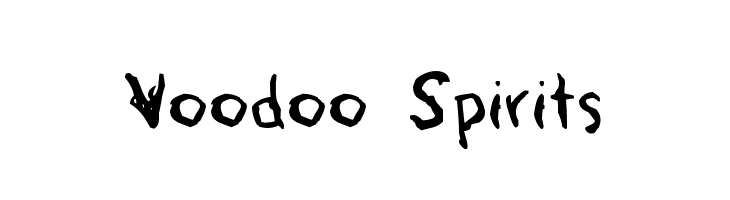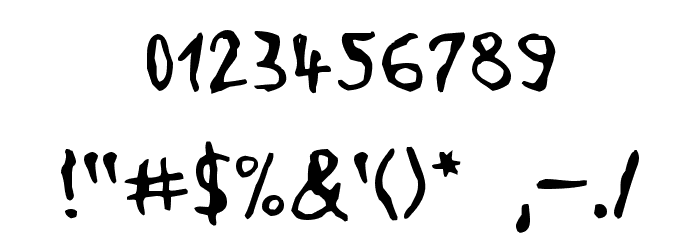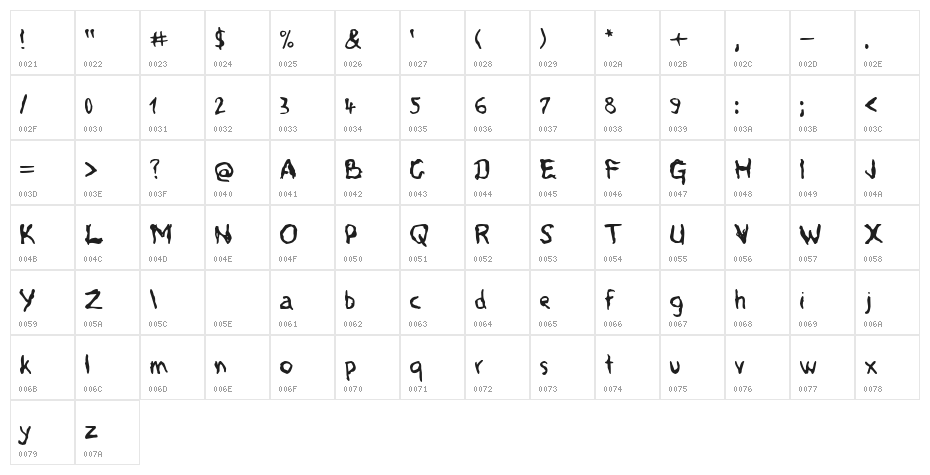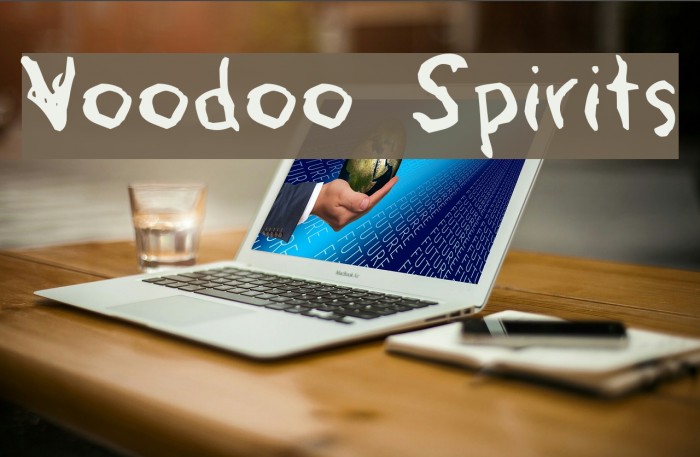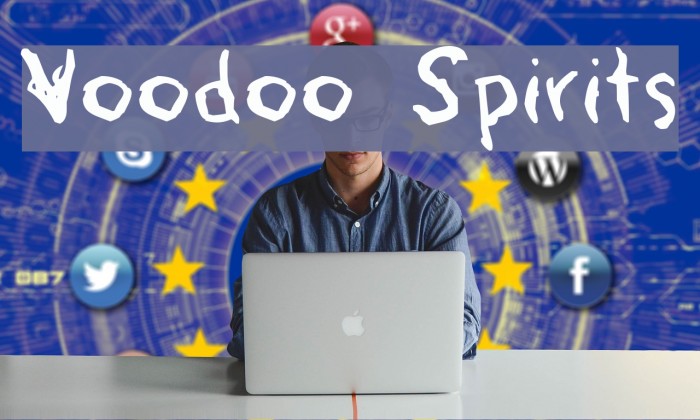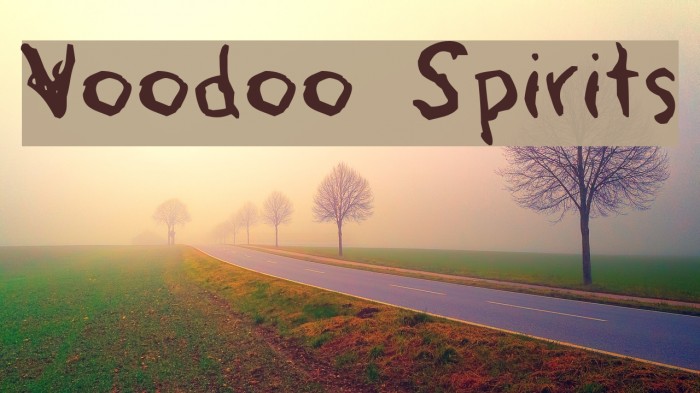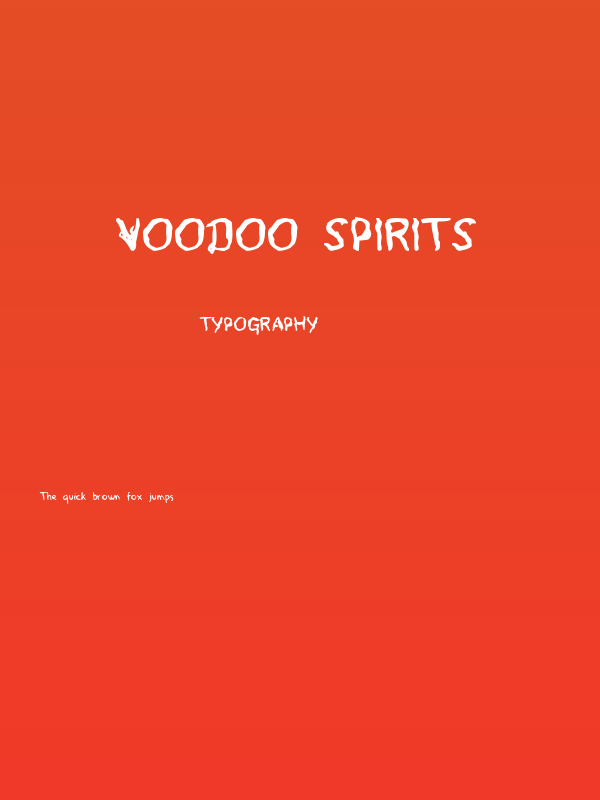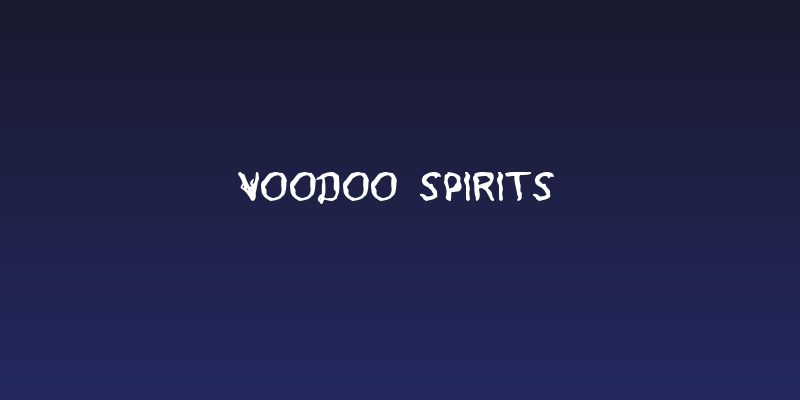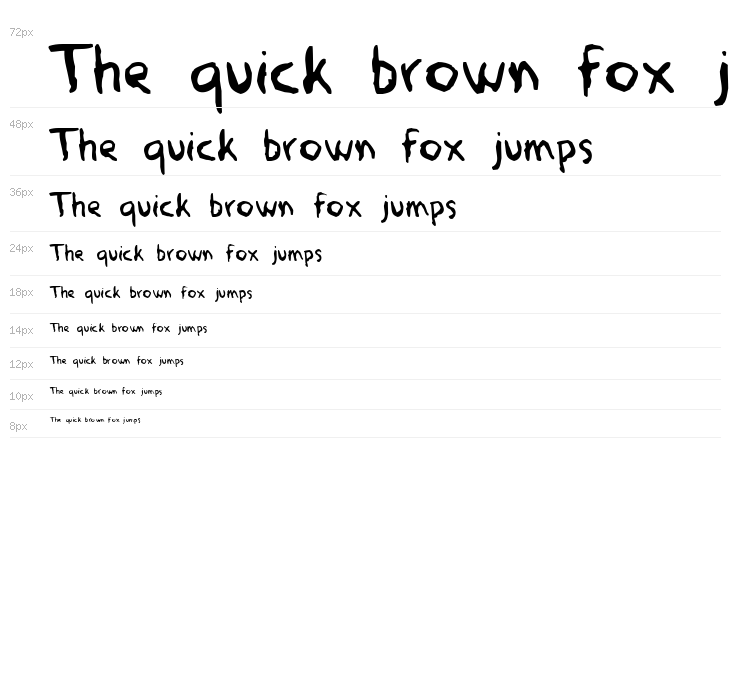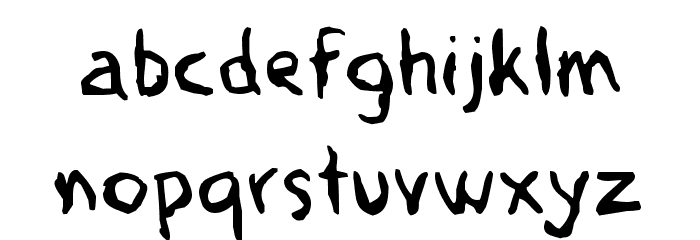
Voodoo Spirits Font
Voodoo Spirits Description
This font exudes a raw, hand-drawn aesthetic with its irregular, jagged edges and uneven stroke widths. Each character appears to be crafted with a brush-like tool, giving it an organic and slightly chaotic feel. The uppercase letters are bold and assertive, while the lowercase letters maintain a consistent style, adding a touch of whimsy. The numerals and special characters follow the same rugged design, ensuring a cohesive look across all text. This font's unique style makes it stand out, perfect for projects that require a touch of the unconventional.